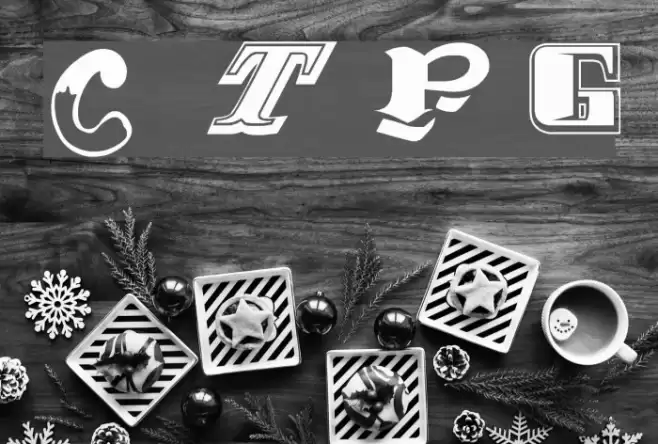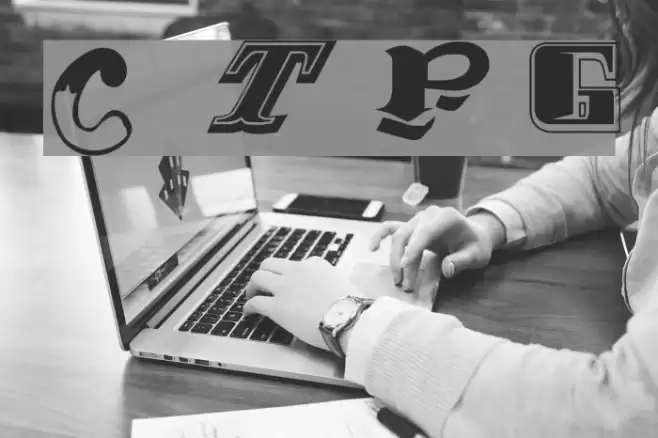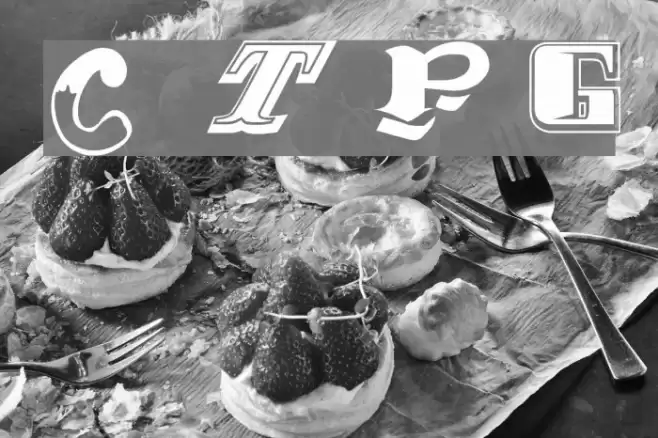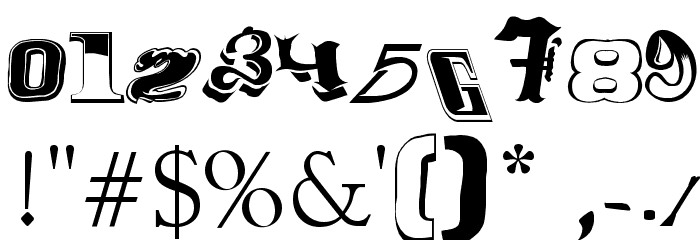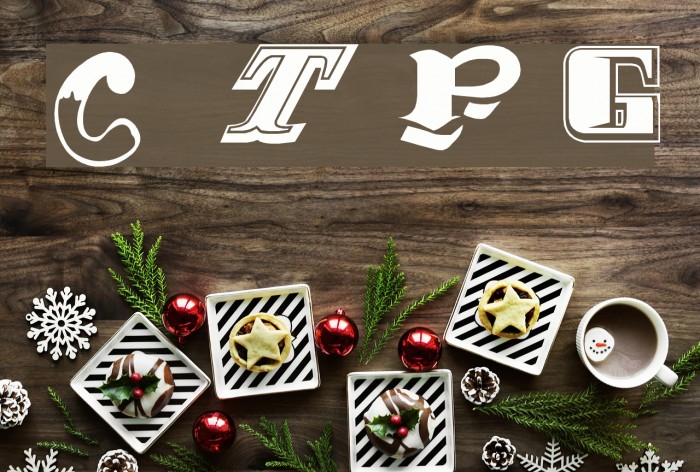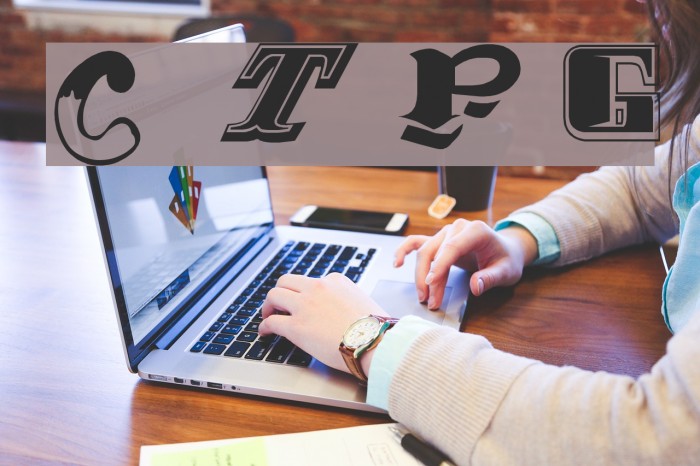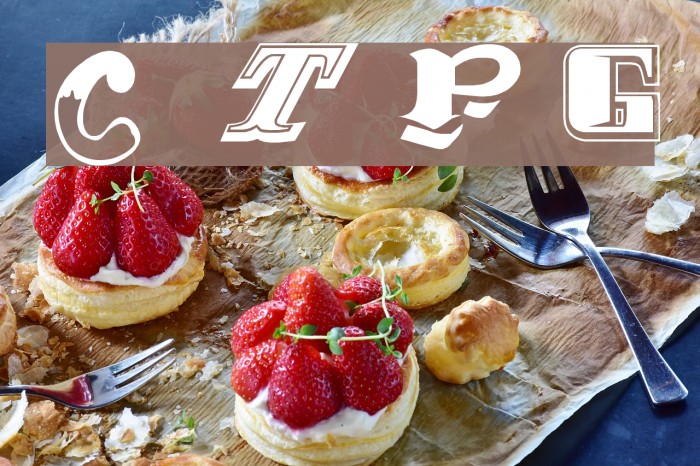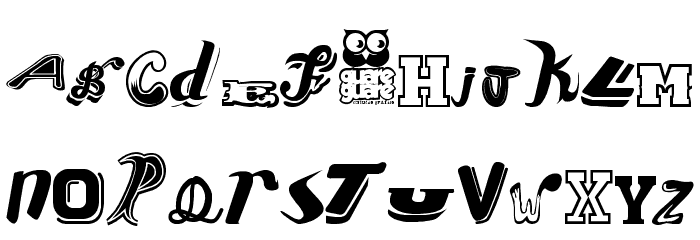
Conjunto de Tipografias Populares Guatemaltecas Font
Conjunto de Tipografias Populares Guatemaltecas Description
This collection of fonts showcases a diverse range of styles, each with unique characteristics. The fonts feature bold, decorative elements with high contrast in stroke thickness, creating a striking visual impact. Some letters incorporate playful and whimsical designs, while others have a more structured and geometric appearance. The variety includes elements of both modern and vintage aesthetics, with some characters displaying intricate details and others maintaining a minimalist approach. The fonts are designed to capture attention and convey a sense of creativity and artistic flair.
A diverse collection of bold, decorative fonts with high contrast and unique styles from Decorative fonts.
- Font: Conjunto de Tipografias Populares Guatemaltecas
- Proposed Projects: Ideal for creative projects such as posters, branding, and artistic designs that require a bold and eye-catching typeface.